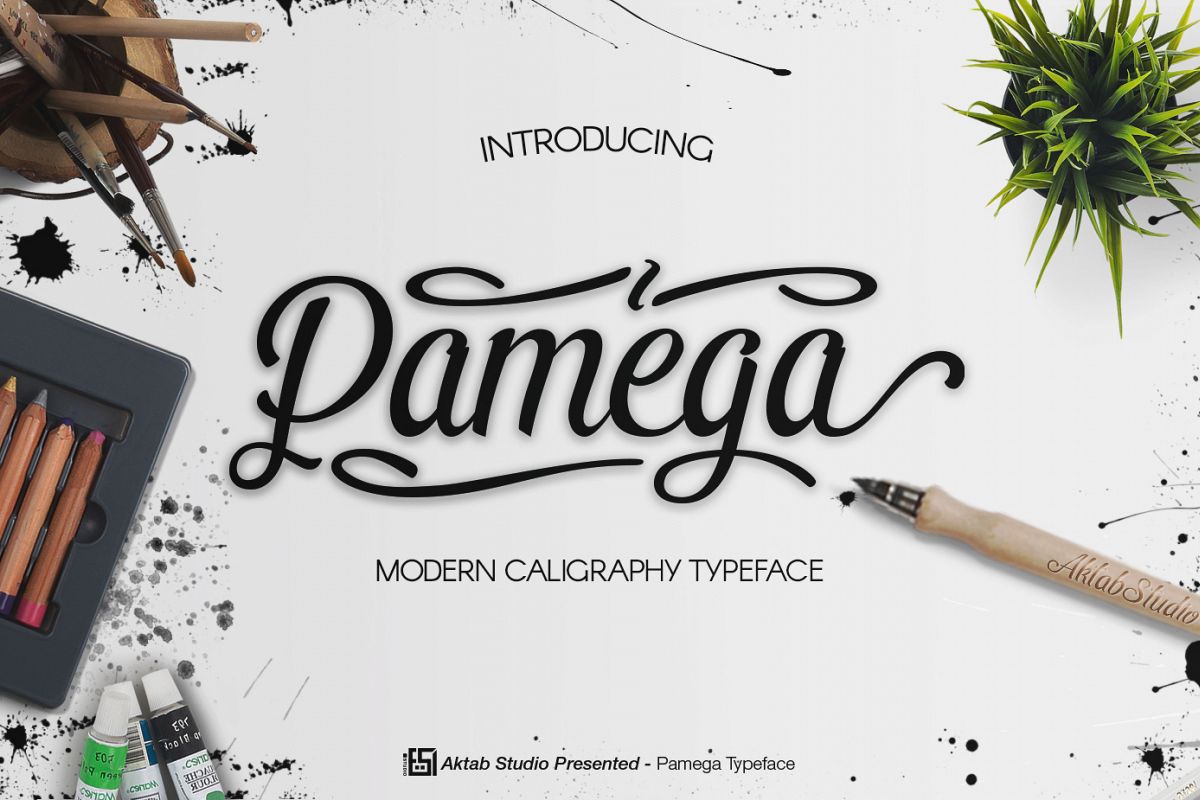
Pamega Script Font
Pamega Script is a modern font with more featured and made with hand lettering. Pamega Script have a glyphs over 2300 glyphs, this font suitable for wedding invitation, greeting cards, T-Shirt, Logo or any design that you create. comes with a complete set of standard characters, Alternates, Punctuation & international glyphs and many more.
The Features of this fonts is:
• UPPERCASE and lowercase
• Numeral and punctuation
• Stylistic Sets 1 - 18
• Stylistic Alternates and Contextual Alternates
• International Glyphs support to All Stylistic Sets
• Support PUA unicode (specially coded fonts)
• Standart Ligatures and Discretionary Ligature
• Fractions
• Initial and Terminal Forms
• Swash
• Smallcaps Numeral